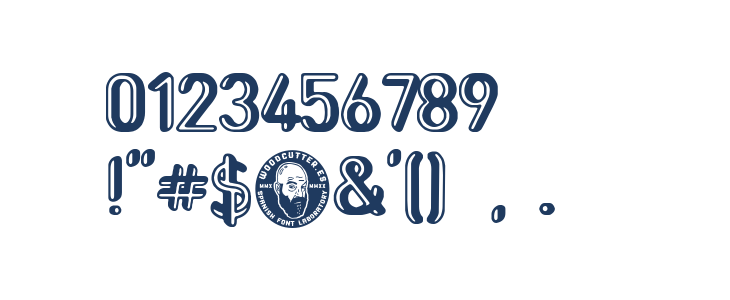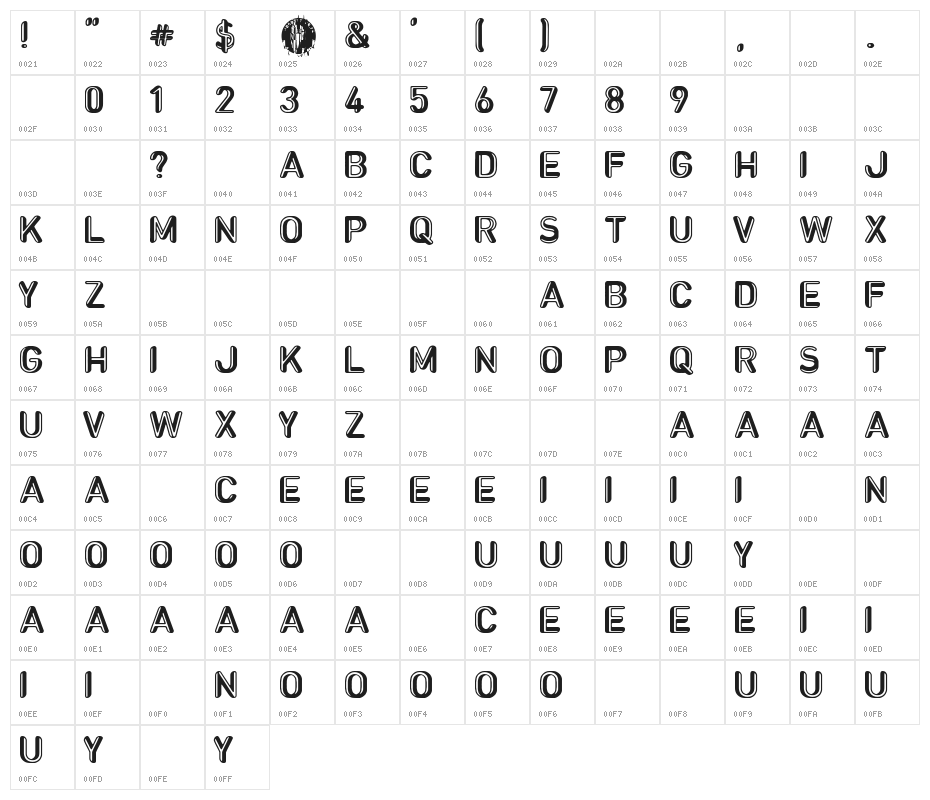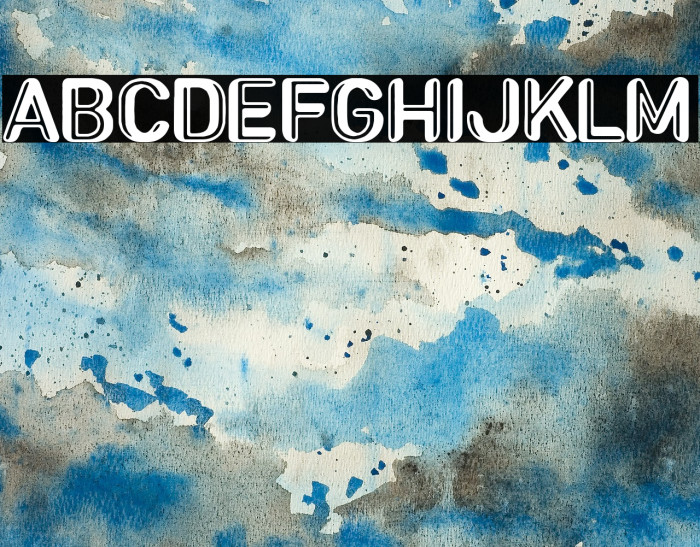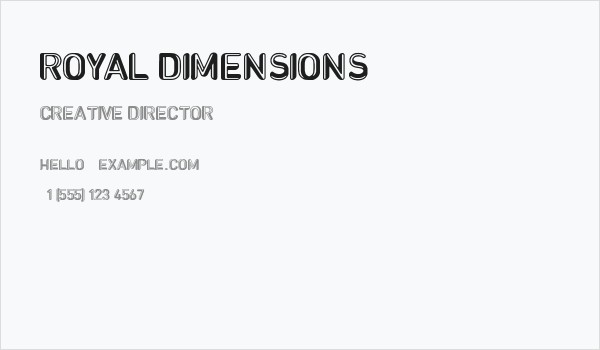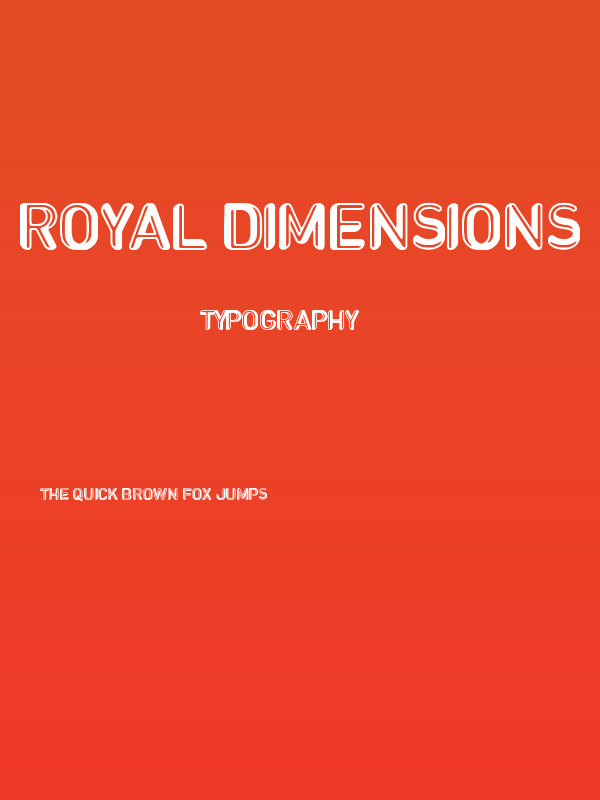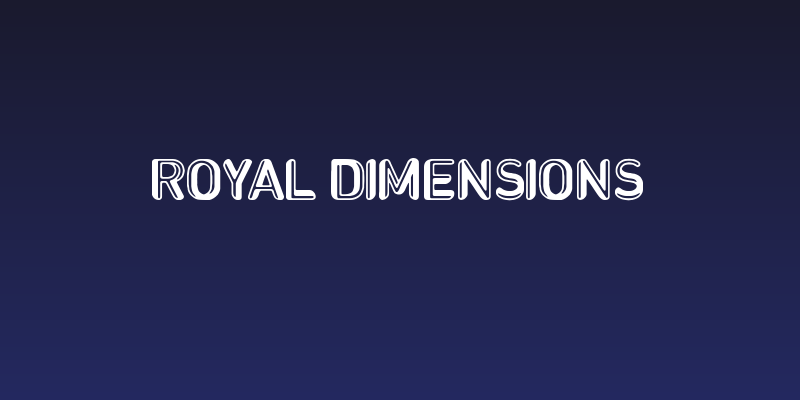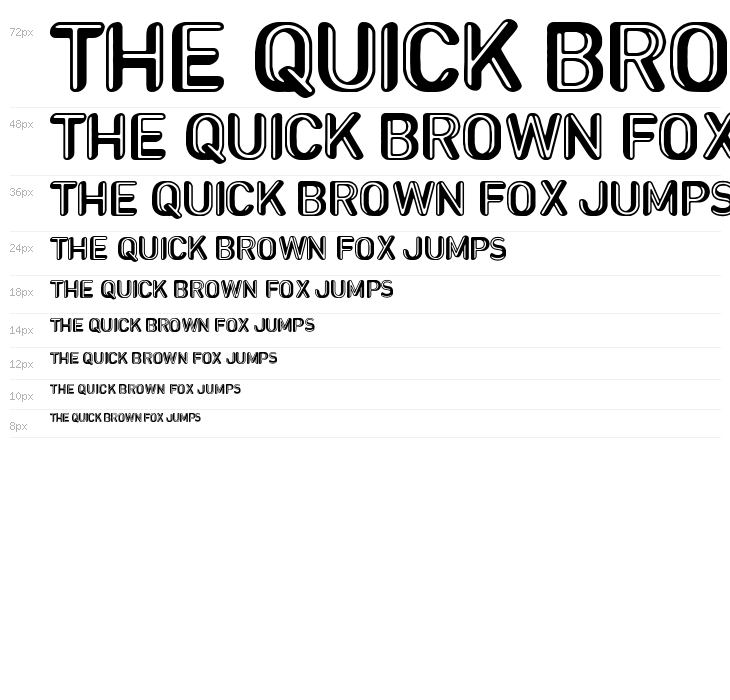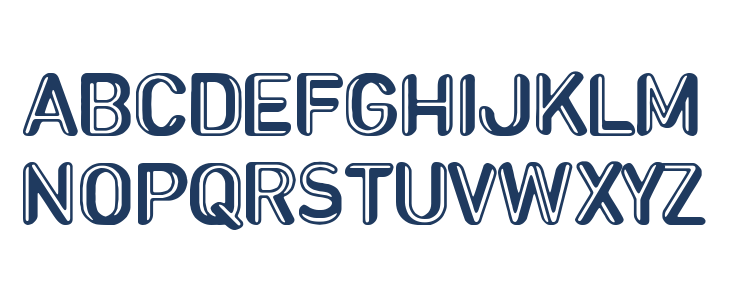
Royal dimensions Font
Royal dimensions Description
This font features a bold, modern design with a distinct outline style that gives each character a three-dimensional appearance. The uppercase and lowercase letters maintain a consistent width, creating a uniform look across the alphabet. The numbers and special characters follow the same design principles, ensuring cohesion throughout. The font's unique style is characterized by its thick outlines and minimal interior space, making it stand out in any design. Its boldness and clarity make it suitable for attention-grabbing headlines and logos.
| Proposed Projects | Ideal for branding, poster design, and any project requiring a strong visual impact. |